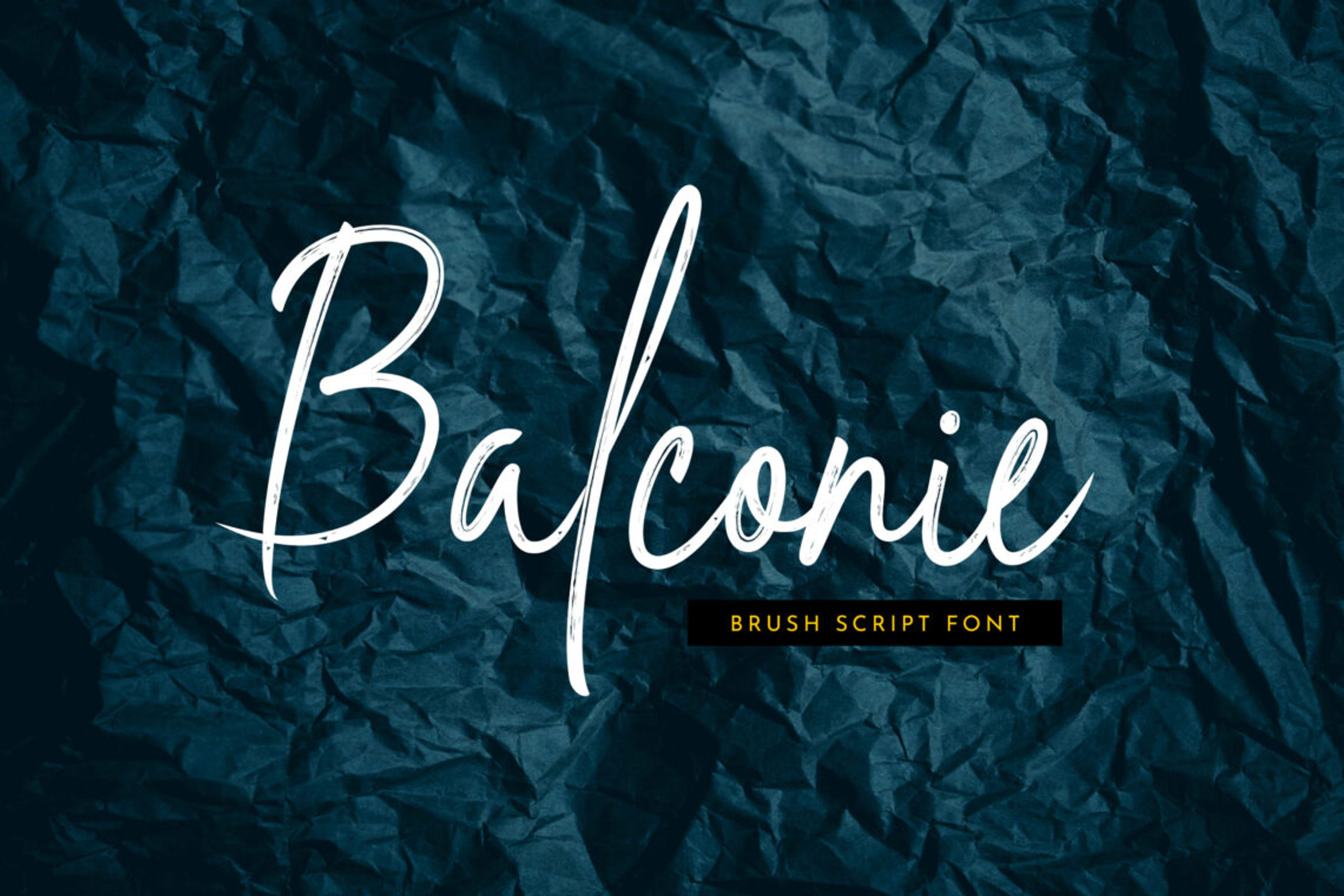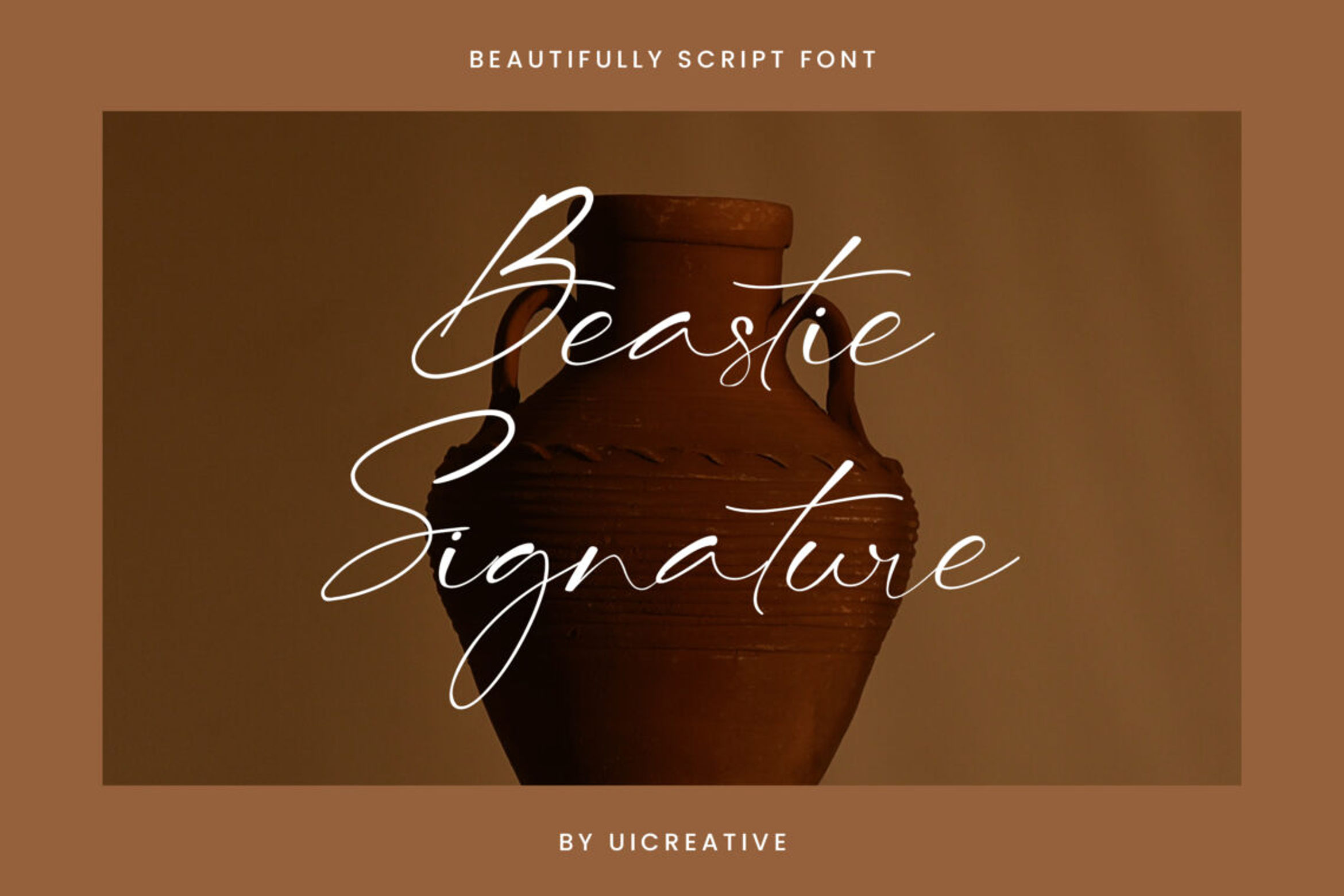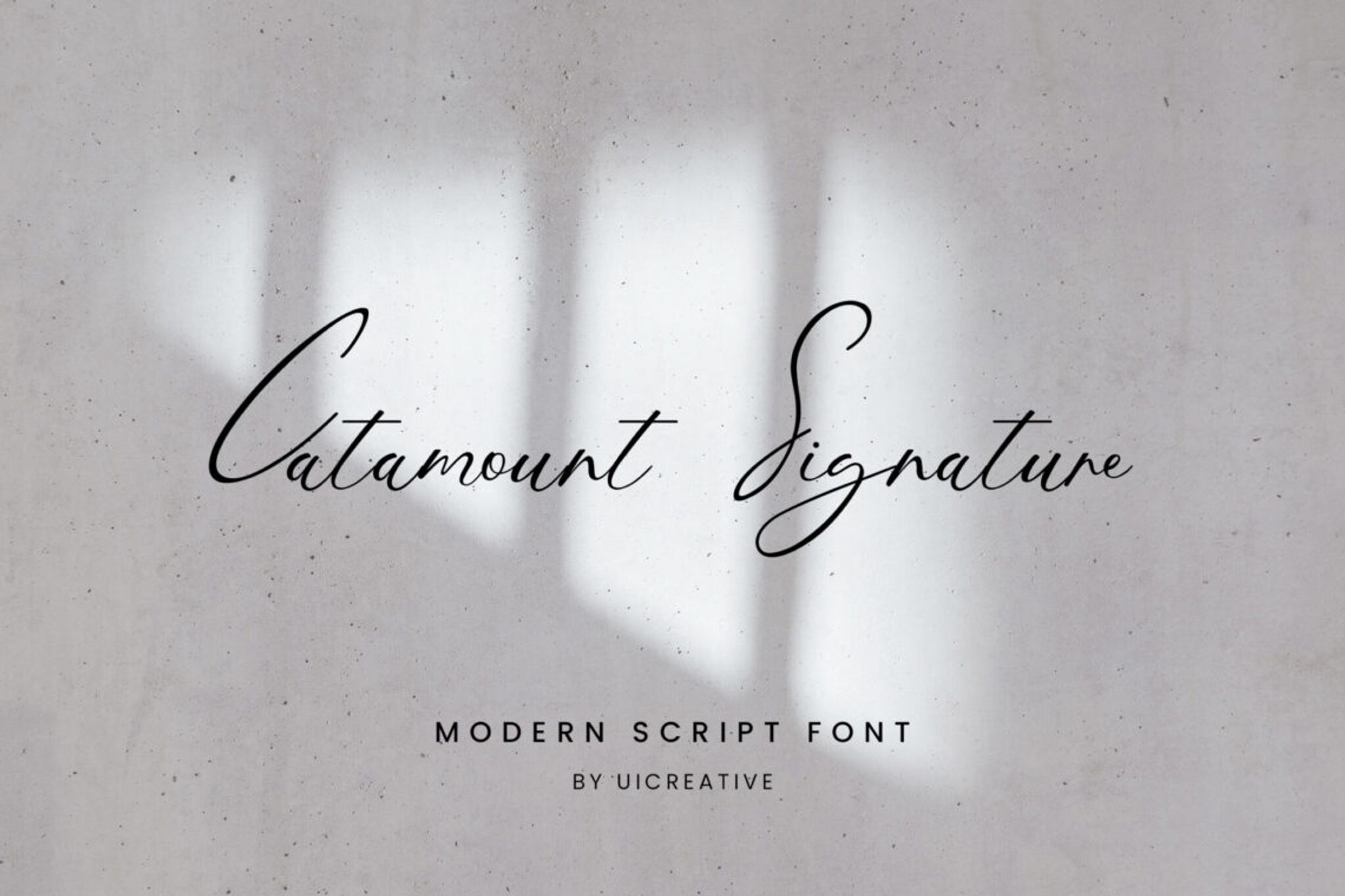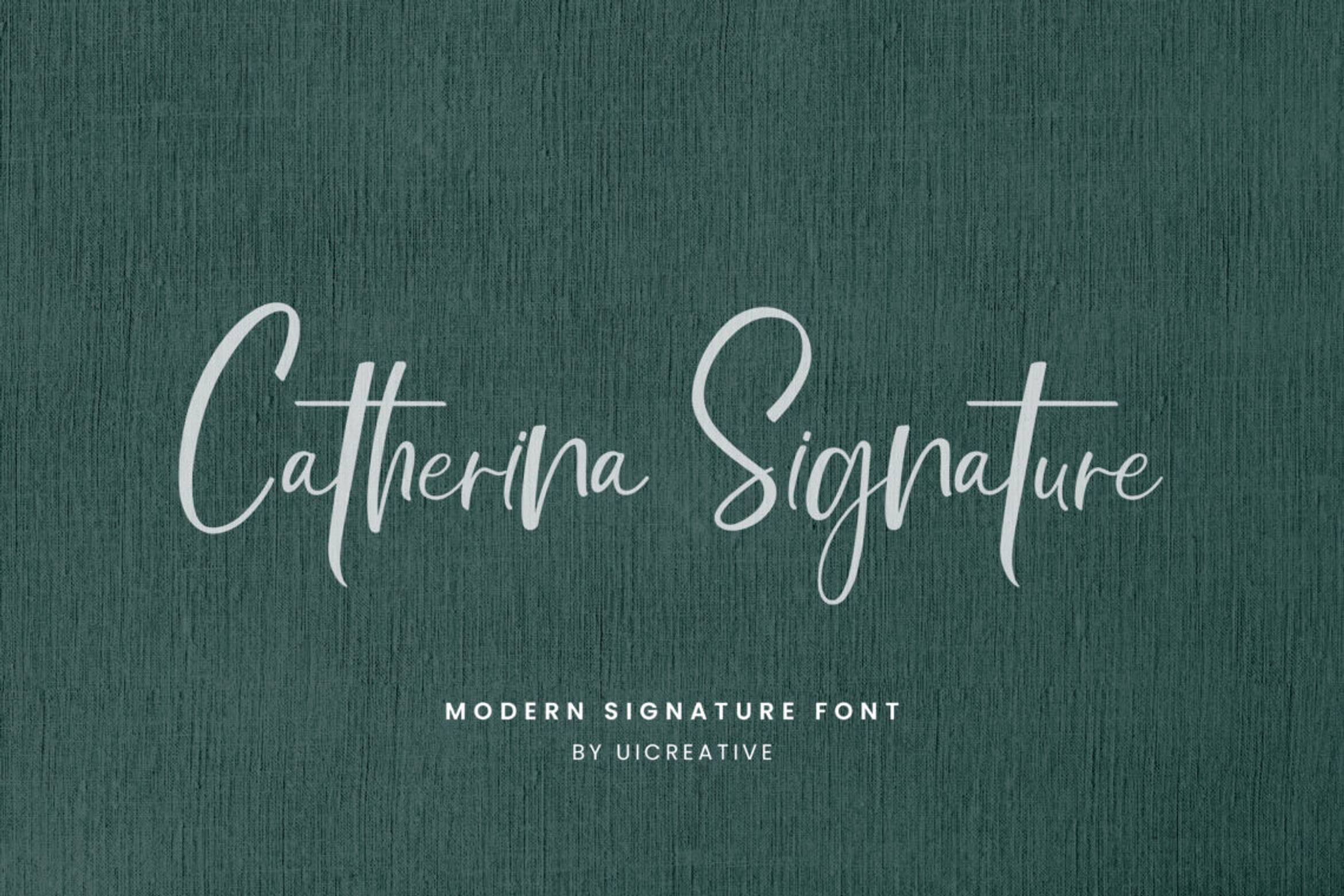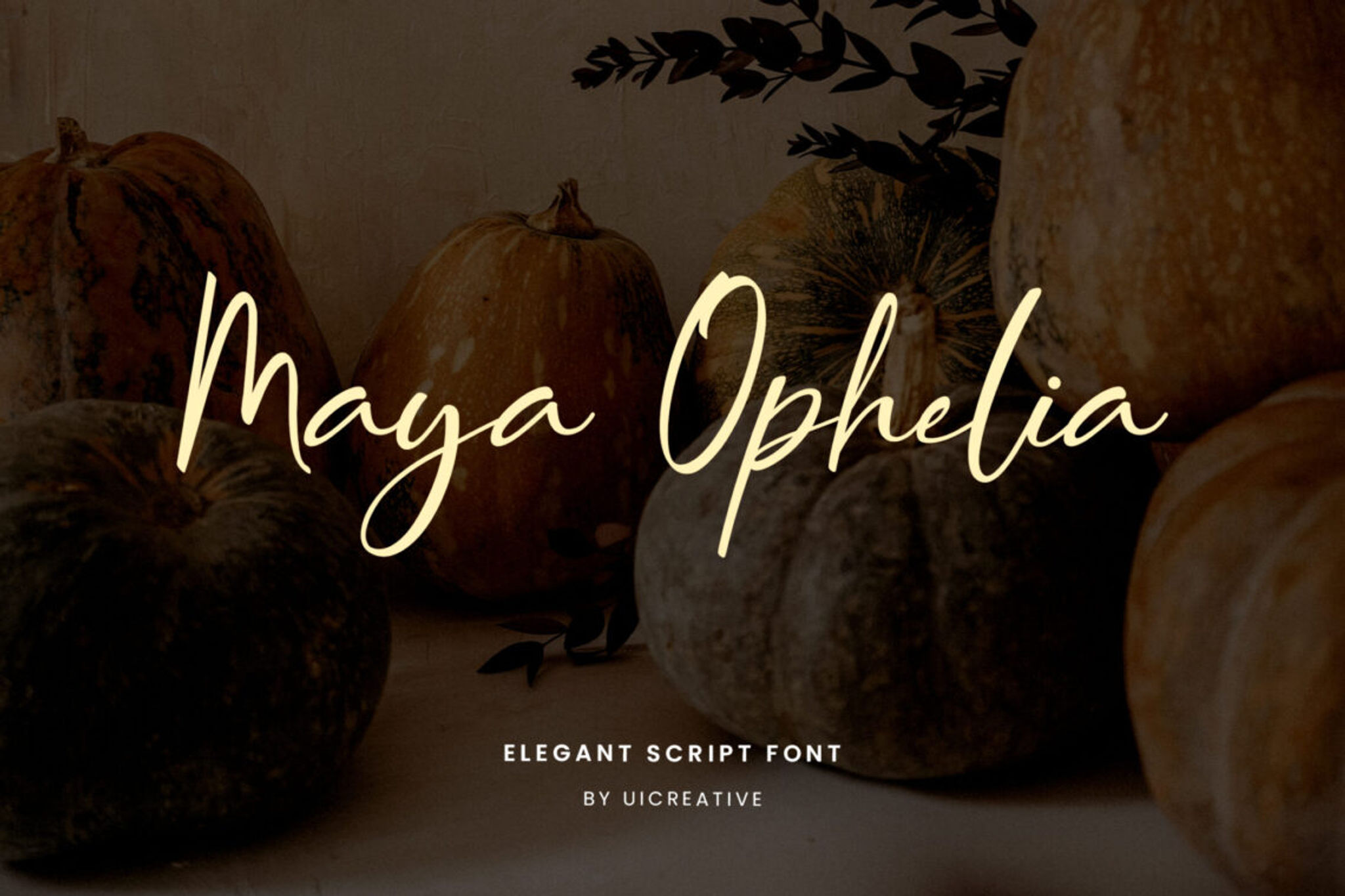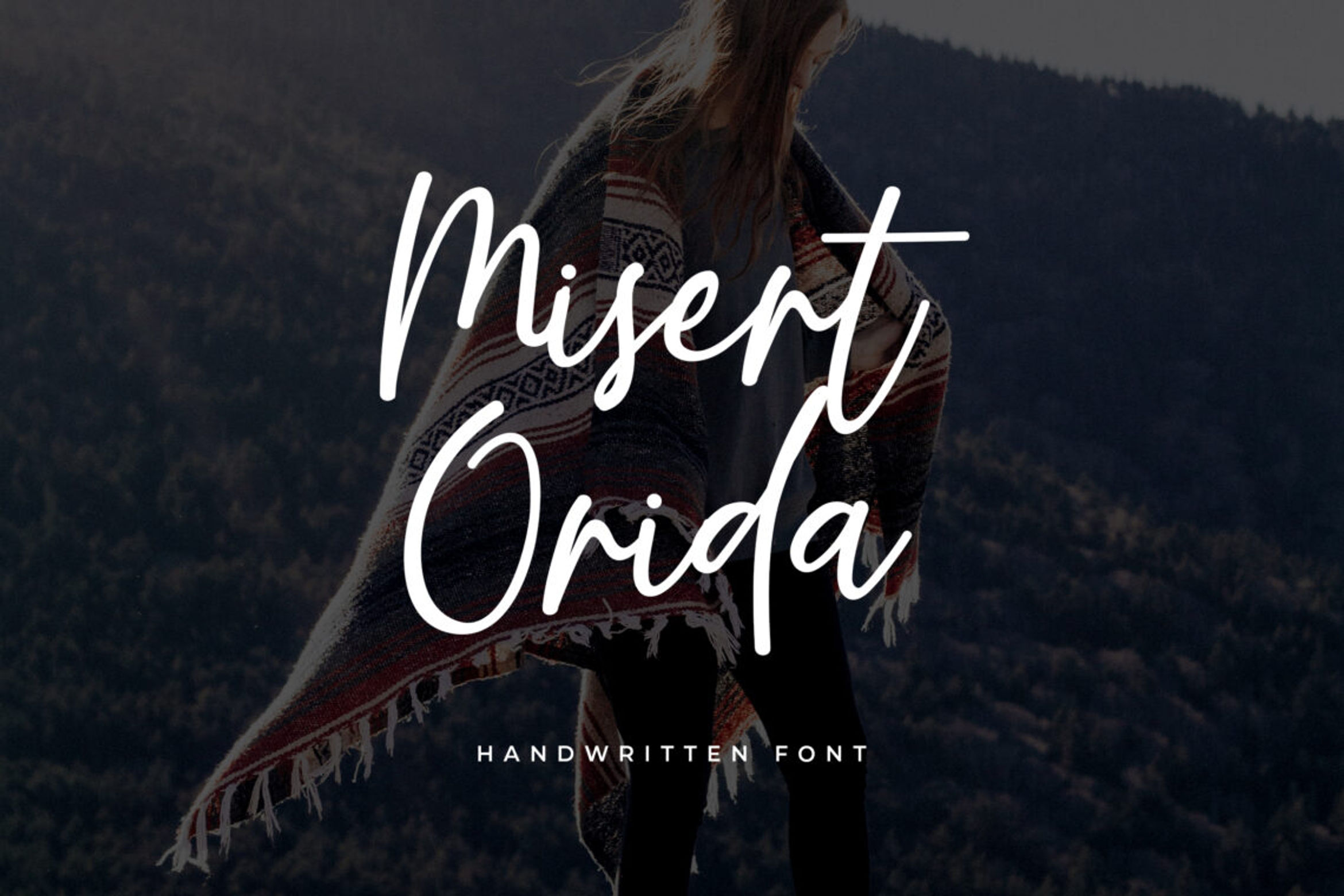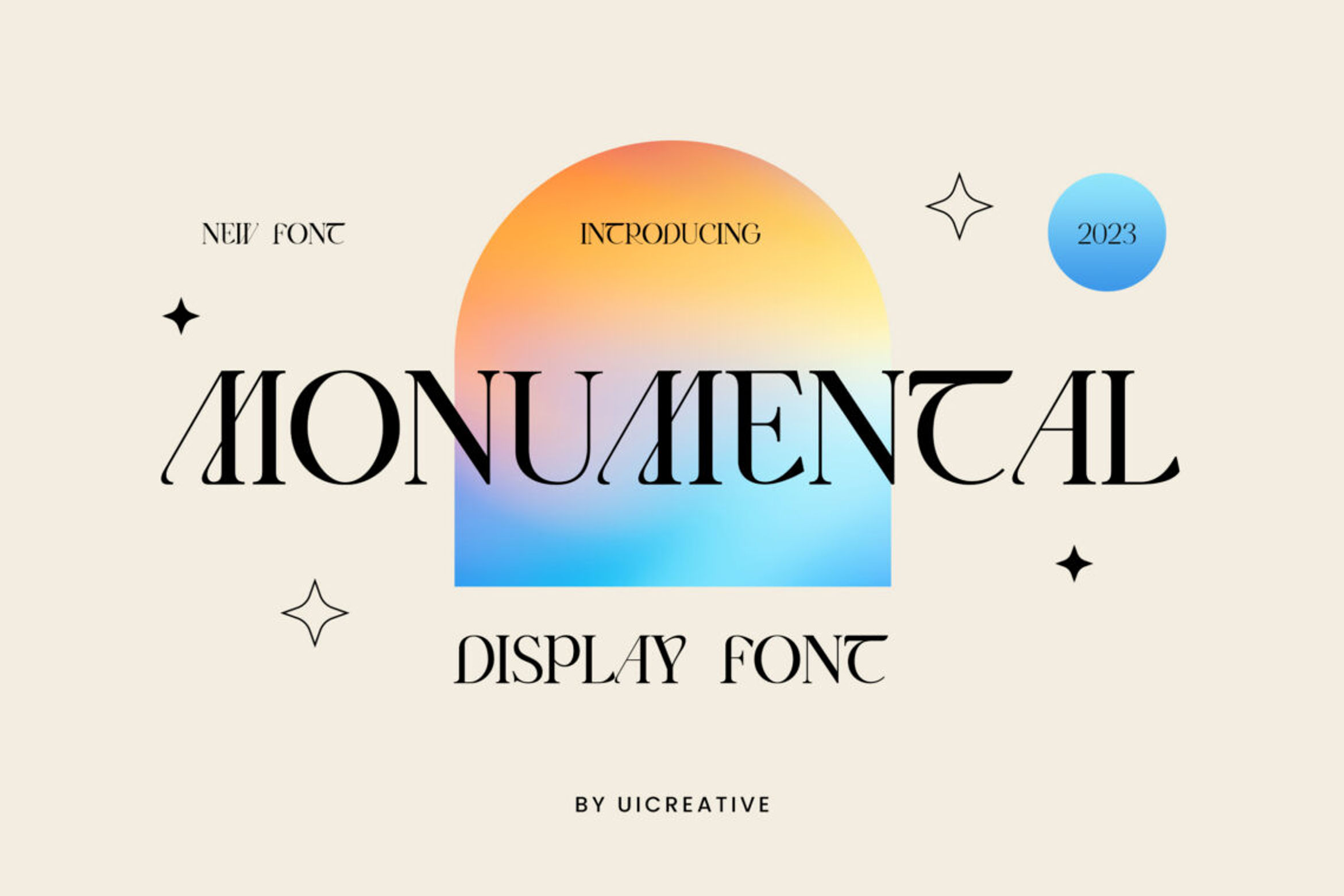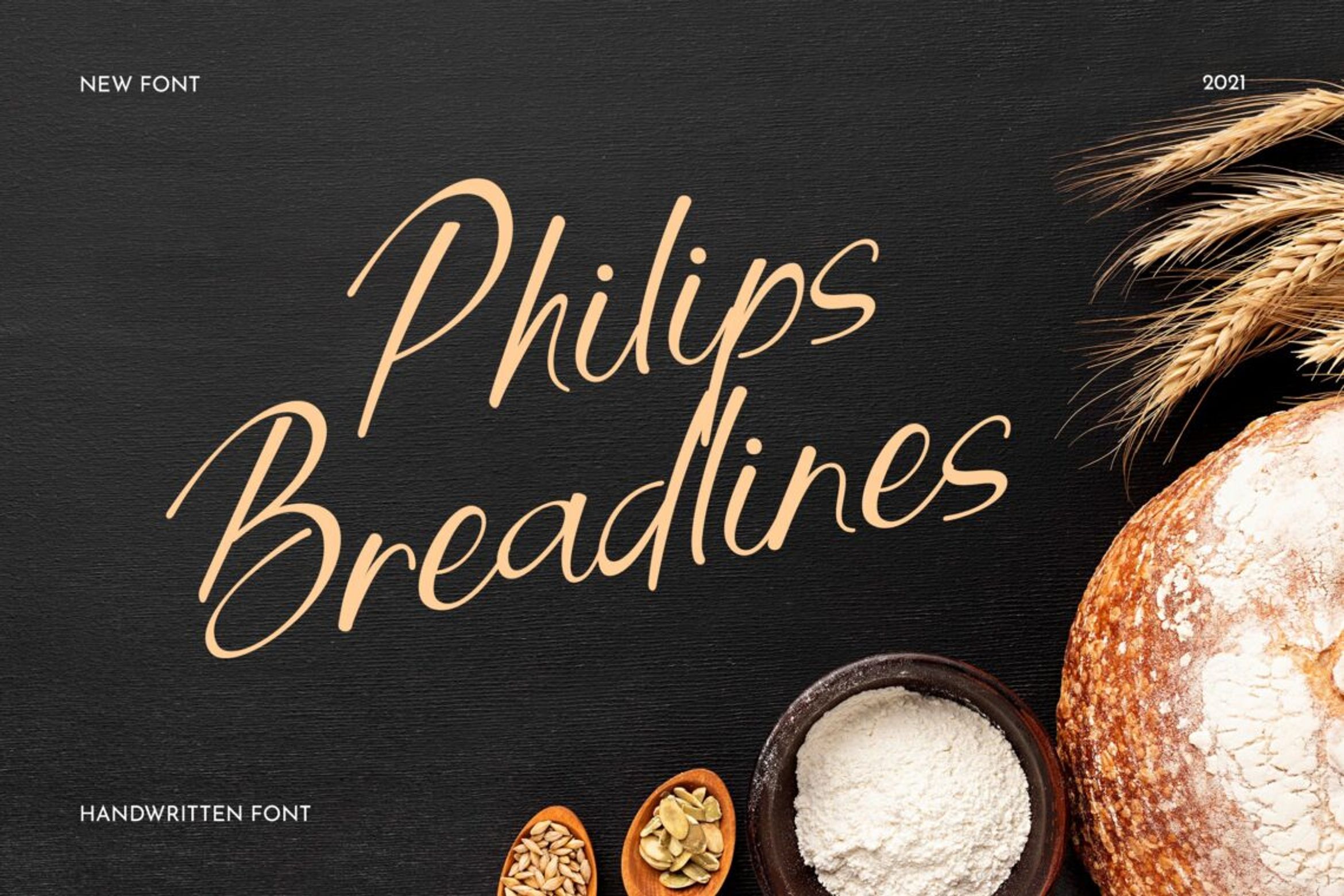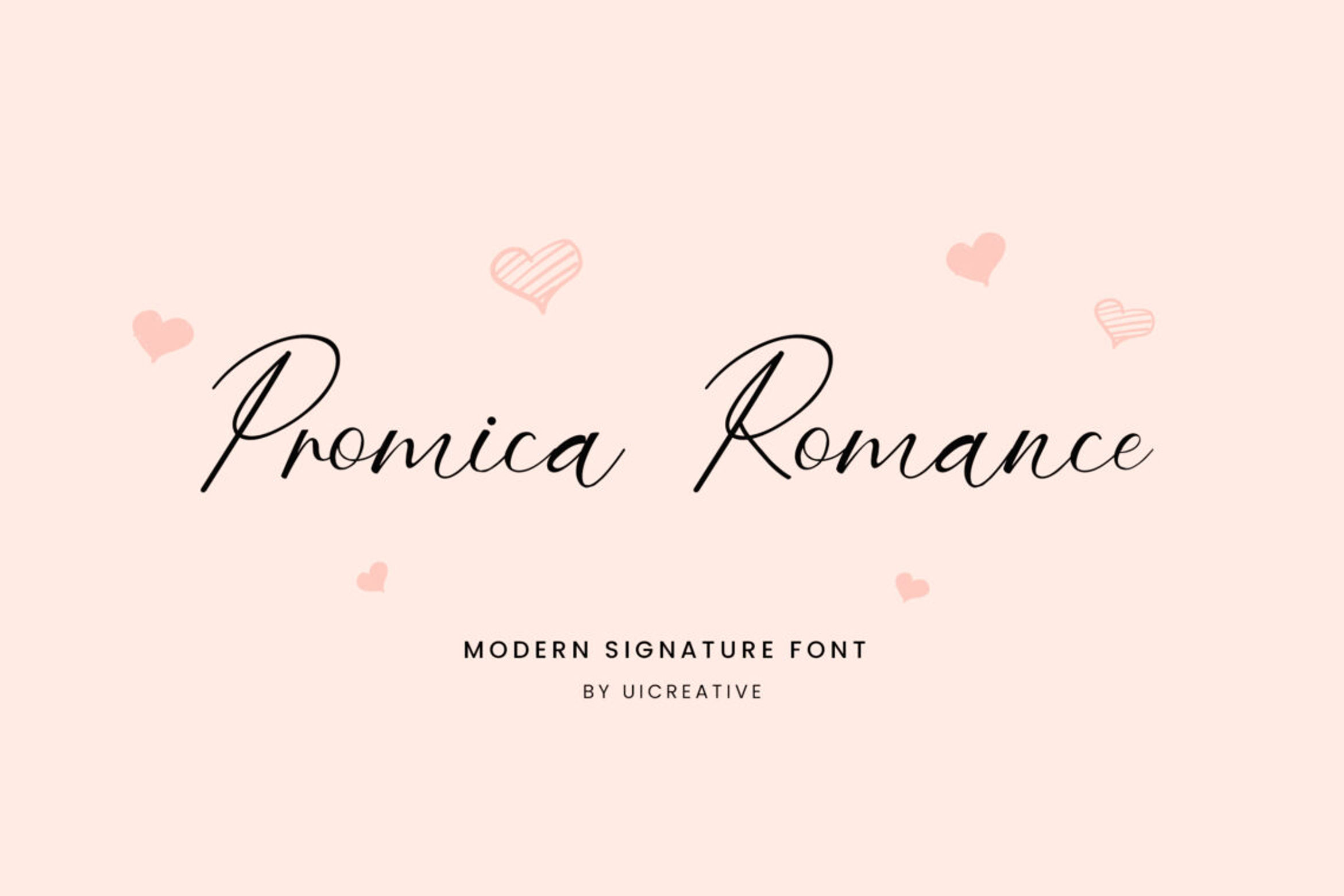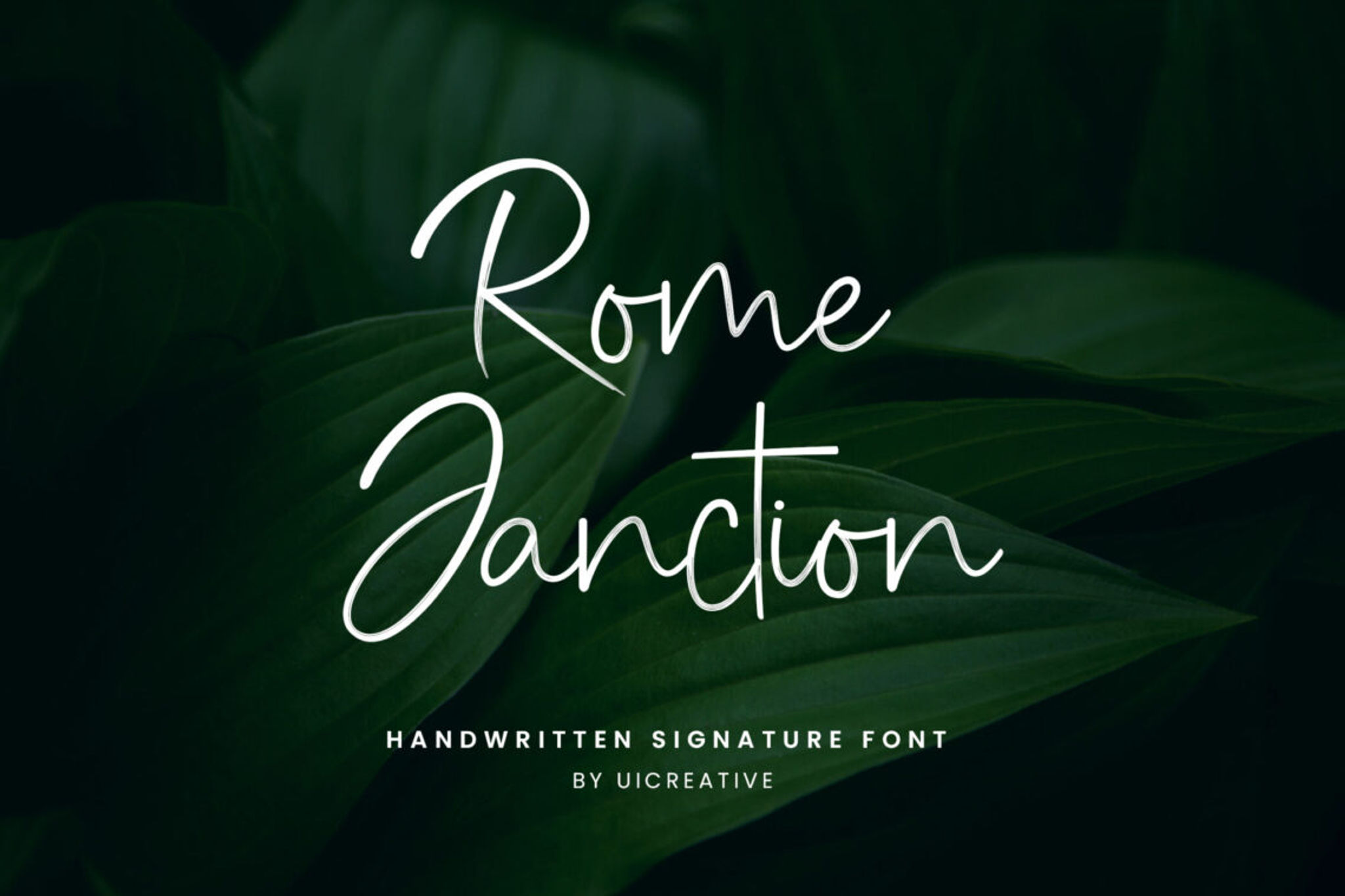
15 Best Eid Al Adha Font (2023)
If you’re looking for the best Eid al Adha font, you don’t need to look any further because we’ve got you covered! Here are the top 15 best choices in the category, in no particular order! Continue scrolling for a more comprehensive list!
15 Best Eid al Adha Font
1. Catherina Modern Signature Font
Catherina Modern Signature Font
Catherina Signature is an excellent choice to consider if you’re seeking a brush typeface with a textured appearance. The modern approach that it takes to design makes it appropriate for use in signages, campaigns, publications, and even small-scale social gatherings, in addition to a wide variety of other creative endeavors. Put it to use in projects, including apparel, logos, invites, and any other area where you believe authenticity is important. This handwritten font has lowercase and uppercase letters, so you should have enough work! This is one of modern design’s most widely used and well-regarded handwritten fonts.
2. Beastie Signature Font – Best Eid al Adha Font
Best Eid al Adha Font
Beastie Signature Font is a popular handwritten typeface among designers because of its personal touch, elegance, and broad strokes. This typeface includes uppercase standard letters and features for several languages and punctuation, making it an excellent choice for artistic projects and branding endeavors.
3. Monumental Modern Display Serif Font
Monumental Modern Display Serif Font
Monumental offers a fresh perspective on digital lettering with its boldness, versatility, and creative sensibilities. This typeface is a good competitor for clean designs, big visual presentations, and ornate signages since it contains various alternate characters that may be used for uppercase and lowercase letters. Designers and artists will adore that this typeface can be utilized in any setting because it is both personal and aesthetically pleasing.
4. Brushwork Display Brush Font
Brushwork Display Brush Font
The Brushwork is a bold, hand-painted typeface that appears to be painted spontaneously. It is inherently attention-grabbing due to its broad strokes and faded design. You may use it for everything from book covers to advertisements, site signage, and more! This typeface supports other languages besides having both uppercase and lowercase characters available.
5. Rome Janction Handwritten Signature Font
Rome Janction Handwritten Signature Font
The Rome Janction is a compelling, elegant, and one-of-a-kind typeface reminiscent of graffiti and marker typefaces. This typeface is ideal for the design of posters, headlines, and the photography of album covers, among other things. It automatically lends a touch of genuineness and attitude. This font creates a feeling that is both distinctively personal and more approachable with the use of bold lines and curving brushstrokes.
6. Maya Ophelia Signature Font
Maya Ophelia Signature Font
Maya Ophelia’s sharpie aesthetics feature strong lines and shaded gaps between the letters. These aesthetics were inspired by antique advertisements. The aesthetics and appeals of this typeface are sure to captivate the attention of anyone interested in creating an atmosphere reminiscent of the 1950s. Maya Ophelia is one of the fonts that stick out on this list as being one of the more memorable fonts because it perfectly preserves a popular font during a certain era.
7. Philips Breadlines Handwritten Font
Philips Breadlines Handwritten Font
Philips Breadlines font is the typeface you’re looking for if you want something contemporary and artistic in appearance. This typography is great for creative endeavors and branding activities because of its versatility and adaptability to various applications. Sinisuka is an original interpretation of what handwritten fonts should look like, and it does this by utilizing sharp edges and thin lines.
8. Misert Orida Signature Font – Best Eid al Adha Font
Misert Orida Signature Font - Best Eid al Adha Font
Misert Orida is another handwritten font included on this list with a fairly genuine feel. This typeface is easy to read, has a sense of humor, and is not too bulky, making it ideal for personal letters, invitations, and greeting cards. This font is a typeface that features a warm and inviting appearance and is available in both upper and lower case.
9. Balconie Brush Handwritten Font
Balconie Brush Handwritten Font
The handwritten typeface, Balconie is chic and uses lengthy strokes throughout the letters. This font, which looks similar to that of text that has been scrawled with a sharpie, is a standard choice for graphic designers and other creatives who want their work to have an air of familiarity and a sense of individuality.
10. Wonderful Weekend Brush Handwritten Font
Wonderful Weekend Brush Handwritten Font
The Wonderful Weekend Font exudes a certain amount of manliness because of the manner in which it is written. This typeface is the best example that doesn’t seem to have been digitized in any way because of its uneven and visually crooked appearance. With its broad strokes and lines that aren’t always symmetric, this font is ideal for use when you want the text to give the impression that it was hastily written by hand.
11. Bondstone Mintage Handwritten Font
Bondstone Mintage Handwritten Font - eid al adha mubarak font
Bondstone Mintage is a feminine design that uses long, slender strokes to make a statement. It is considered to be one of the more elegant typefaces. This font, which features a cursive style, works well for wedding invitations, designs for stationery, and other projects that use handwritten aesthetics to carry a unified theme.
12. Butter Cookies Handwritten Font – Best Eid al Adha Font
Butter Cookies Handwritten Font - Best Eid al Adha Font
The Butter Cookies Collection is a sleek-looking handwritten font that will pack a punch due to its simple and elegant design and various modification options. This font, which features elongated strokes and curves on every edge, works wonderfully for various designs, particularly those that include motivational sayings or phrases that will grab attention.
13. Sarmatia Signature Font
Sarmatia Signature Font
Sarmatia Signature is yet another well-known textured typeface that can be found on our list. It gives the impression that it was created with a paintbrush. This font is one of the more premium-looking types that you’ll find in UICreative. It has an elegant and vintage style, bringing to mind the end credits you may see in cartoons from the 1990s. Use it on personalized mugs, book covers, or anything else you can think of. It has a refined overall appearance and will look great in any application thanks to its ability to blend seamlessly.
14. Catamount Signature Font – Best Eid al Adha Font
Catamount Signature Font
Catamount Signature Font is a handwritten signature-style font that was designed by UICreative. The typeface was inspired by the life and the truth and wonder that comes along with it. This font is an exquisite, modern, and trendy handwritten font. The collection can be used effectively in various tools, including Photoshop, InDesign, Adobe Illustrator, and Inkscape. Your work may benefit from the inclusion of the handwritten typeface, which lends it an air of elegance and refinement, helping it stand out from other similar projects.
15. Promica Romance Modern Signature Font
Promica Romance Modern Signature Font - font aldhabi
The Promica Romance typeface is a rustic, dapper handwritten font with rapid dry strokes and a trademark style. It was designed to give the impression of possessing a bit of personal charm when it is used. The rustic, textured form of the typeface was designed by UICreative, and it comes in both a completely clean and smooth version as well. When used as a text overlay, the typeface can be an excellent choice for branding, packaging, or postings on social media.